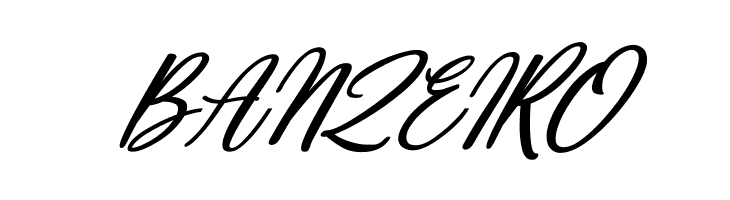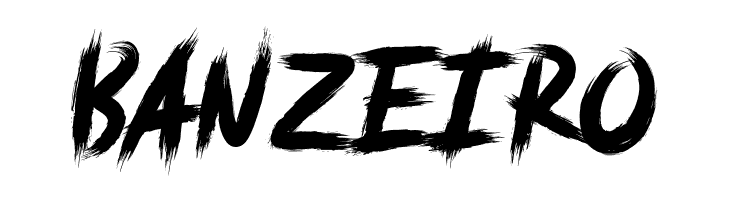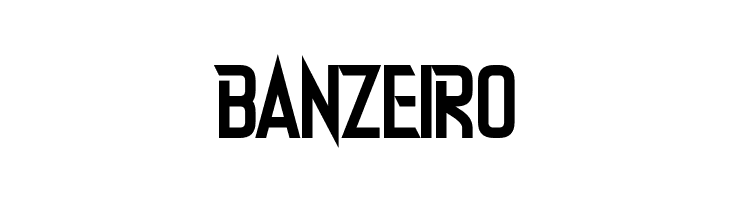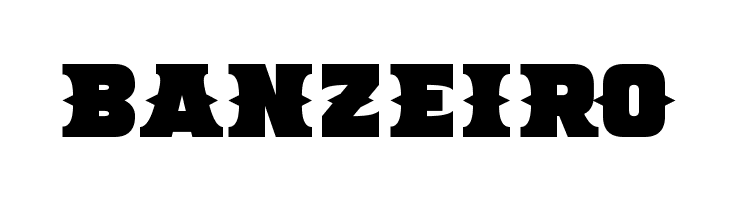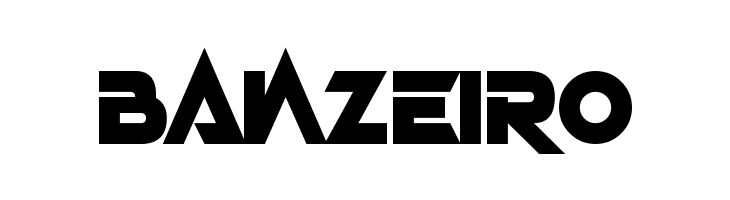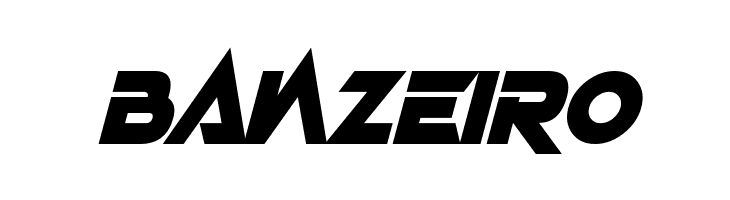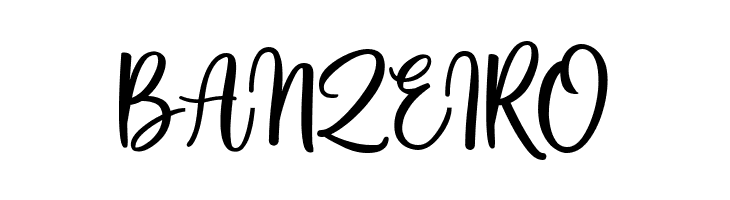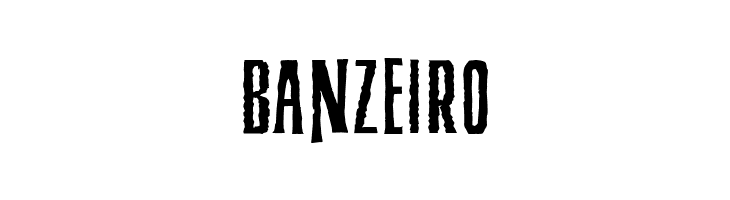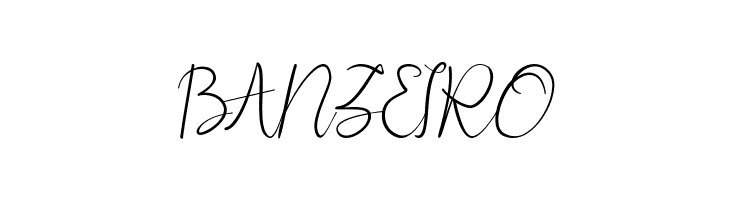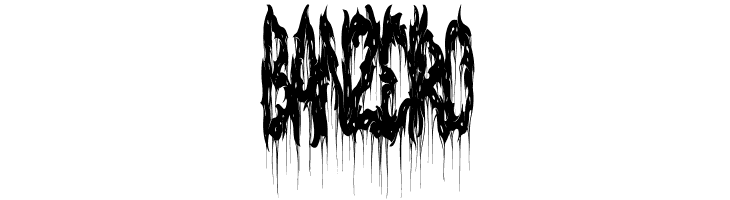
A jagged, distressed font with an edgy, rebellious aesthetic.
A distressed, grungy font with jagged edges and a rebellious style.
A glitch-inspired font with bold, digital distortion effects.
A bold, grunge-style font with splattered, irregular edges.
A geometric, angular font with a modern and edgy style.
A dynamic, slanted script font with an energetic, handwritten style.
A dynamic, slanted handwritten font with a modern, energetic style.
A bold, futuristic font with sharp, angular edges and geometric shapes.
A bold, playful font with chunky, cartoonish letterforms.
A bold, italicized font with dynamic angles and a playful style.
A bold, dynamic script font with a handwritten style and elegant flow.
A bold, dynamic script font with a flowing, handwritten style.
A bold, aggressive font with sharp, jagged edges, perfect for impactful designs.
A bold, dripping font perfect for spooky and dramatic designs.
A bold, dripping font perfect for horror-themed designs.
A bold, decorative slab serif font with unique cut-out details.
A bold, italic font with sharp edges and a unique cut-out style.
A bold, dripping font with a spooky, horror-themed design.
A bold, brush-stroke font with an energetic and dynamic style.
A bold, geometric font with a strong, modern aesthetic.
A bold, geometric outline font with sharp angles and clean lines.
A futuristic, alien-like script with smooth curves and sharp angles, perfect for sci-fi themes.
A bold, futuristic font with angular, geometric characters.
A bold, dripping decorative font with a high-contrast, liquid-like appearance.
A bold, dripping, liquid-like decorative font with a dark and mysterious style.
A bold, decorative font with a dripping, organic style.
A bold, expressive hand-drawn font with dynamic, irregular characters.
A modern, elegant script font with flowing, connected characters.
A bold, angular font with a modern and dynamic style.
A bold, geometric font with sharp, angular edges and a modern style.
A lively and elegant script font with smooth, flowing strokes.
A dynamic, flowing script font with elegant, cursive letterforms and an italic slant.
A bold, cursive italic font with a flowing, handwritten style.